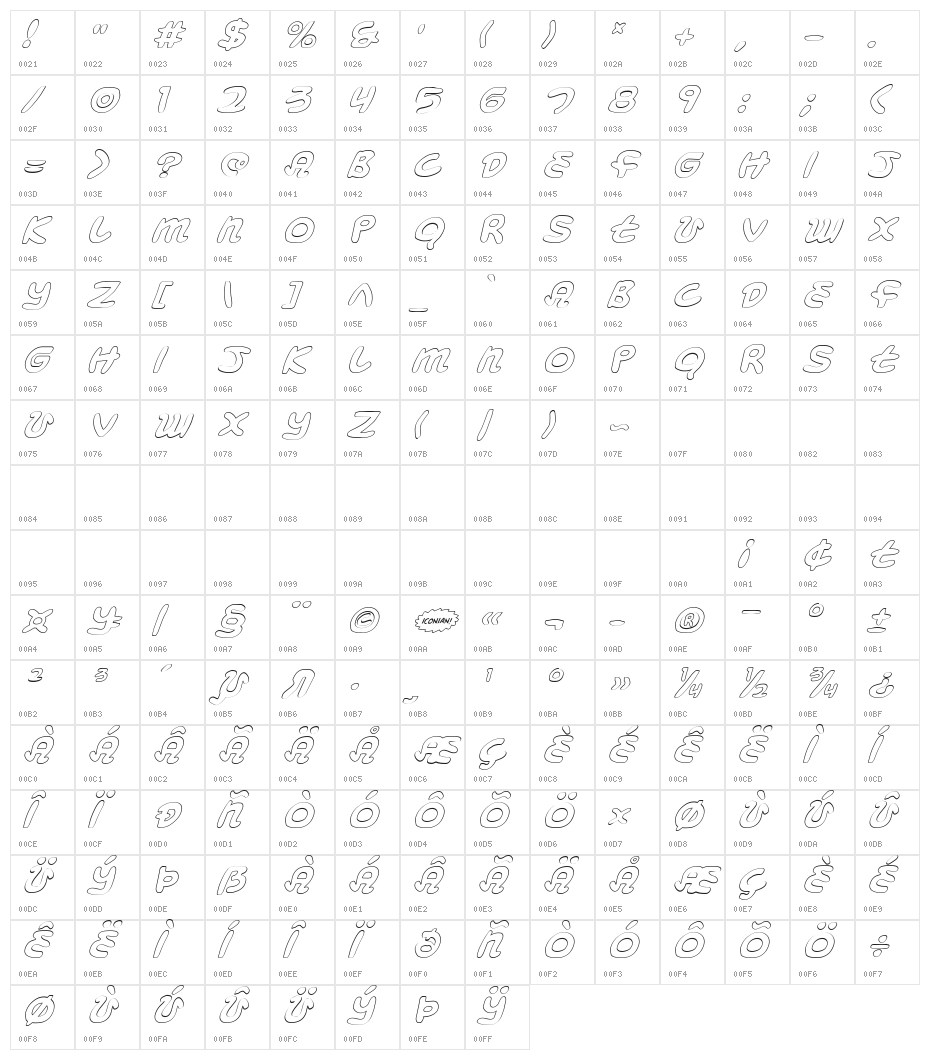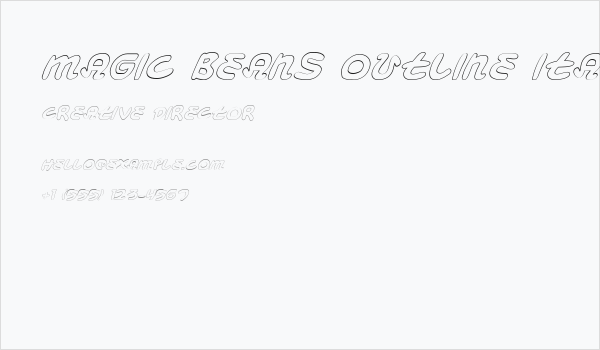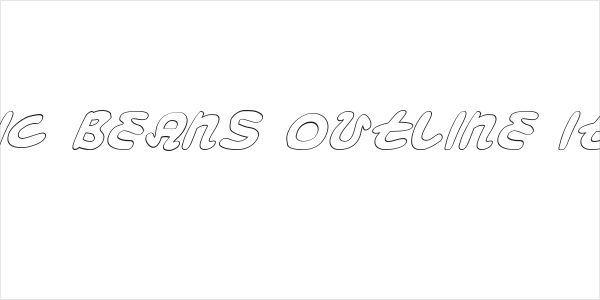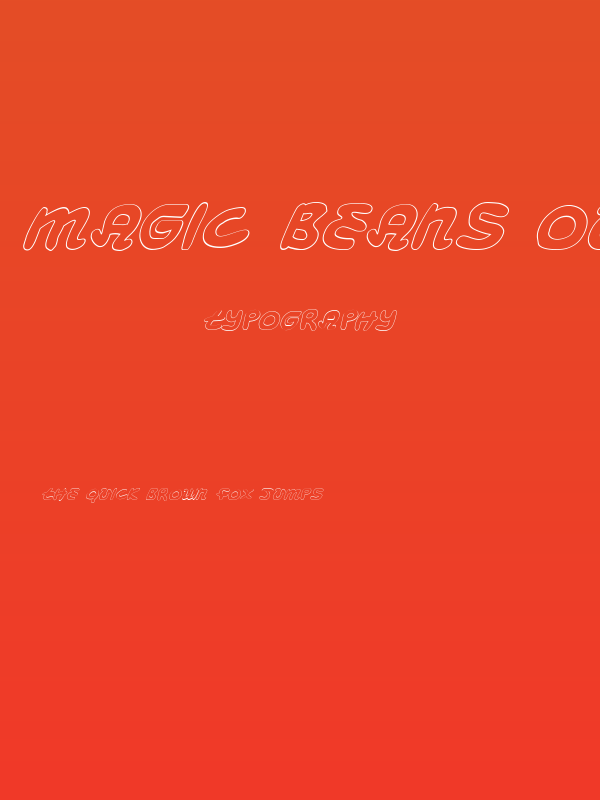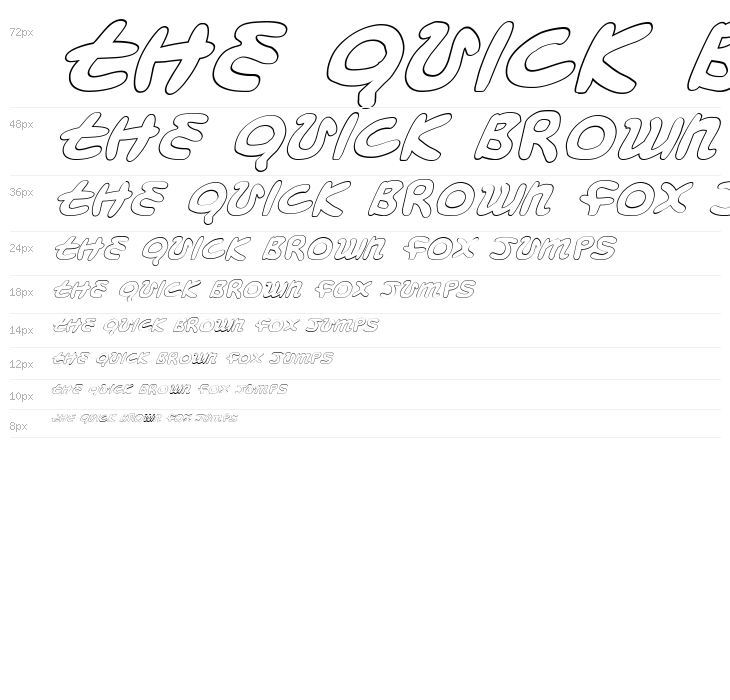
Magic Beans Outline Italic Font
Magic Beans Outline Italic Description
This playful and whimsical font features an outline style with a smooth, flowing design. The characters are italicized, giving them a dynamic and lively appearance. Each letter has a consistent stroke width, creating a uniform look across the alphabet. The rounded edges and curves add a friendly and approachable feel, making it suitable for creative and informal projects. The font includes both uppercase and lowercase letters, numbers, and a variety of special characters, ensuring versatility in its application.